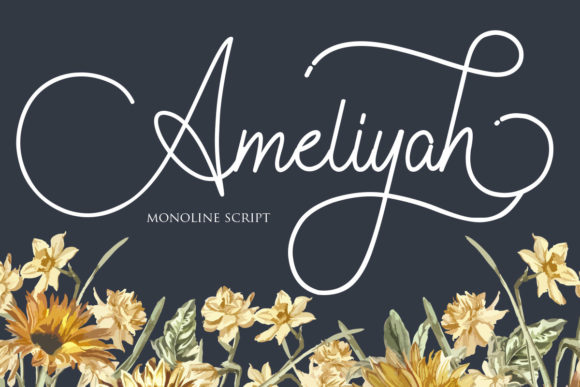
Welcome to the world of Ameliyah Font, a cursive and refined script font that will captivate your designs with its modern, elegant, and utterly beautiful charm. Step into a world of creativity and let Ameliyah's flowing characters dance across your digital canvas.
Ameliyah is not just a font; it's an experience. Its meticulously crafted glyphs and swashes, easily accessible with PUA encoding, invite you to explore a universe of design possibilities. From logos that exude sophistication to branding that whispers elegance, Ameliyah elevates your visual identity to new heights.
Picture your wedding invitations adorned with Ameliyah's graceful curves, adding a touch of romance and timeless beauty to your special day. Envision your stationery transformed into works of art, carrying your words with a touch of elegance that leaves a lasting impression.
With Ameliyah by your side, social media posts become captivating expressions of your brand's personality. Its enchanting swirls and flourishes add a touch of magic to your online presence, drawing eyes and hearts alike.
Ameliyah is more than just a font; it's a gateway to creative freedom. Its versatility knows no bounds, seamlessly adapting to logos, branding, invitations, stationery, wedding designs, and beyond. Unleash your imagination and watch as Ameliyah weaves its magic into every project you touch.